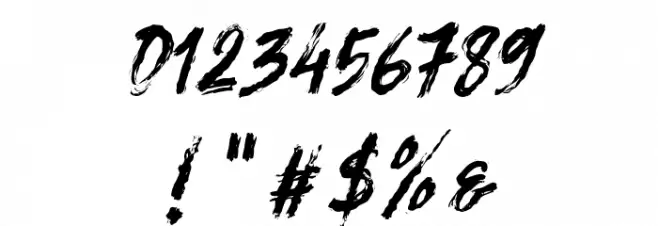
Morgan Chalk Font
Morgan Chalk Description
This font exudes a dynamic and artistic flair, reminiscent of chalk writing on a blackboard. The strokes are bold and textured, giving each character a hand-drawn appearance. The uppercase letters are slightly slanted, adding a sense of movement and energy. The lowercase letters maintain a consistent style, with rounded edges and a playful touch. Numbers and special characters follow the same aesthetic, ensuring a cohesive look across all text. This font's unique style makes it stand out, perfect for creative projects that require a personal and informal touch.
A bold, textured font with a hand-drawn, chalk-like appearance from Uncategorized fonts.
- Proposed Projects: Ideal for educational materials, creative posters, cafe menus, and artistic branding.
- Use Case: Headlines, Logos, Creative projects